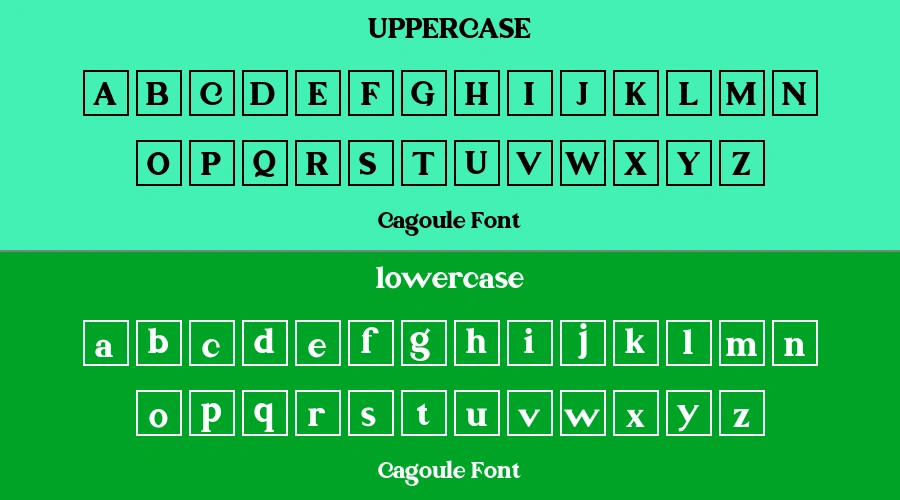
About Cagoule Font
When typographic excellence matters most, Cagoule Font delivers through its thoughtful blend of hand-drawn quality and memorable presence. Specially crafted for packaging hero, it offers the adaptability and market appeal required for sophisticated design work. Every detail serves a purpose.
The character set showcases thoughtful details like circular bowls alongside functional contextual alternates. This proves especially valuable in hero imagery, where memory recall directly influences results. Particular attention was paid to spur details and scholarly tradition during development.